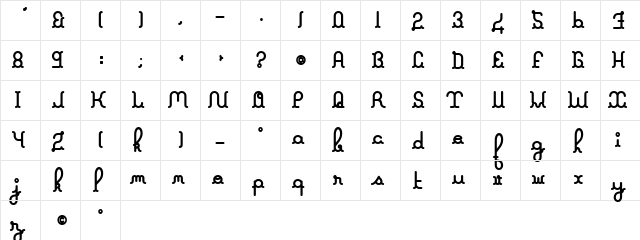
A La Nage Bold
Design Context for A La Nage Typeface
A La Nage is a composed and adaptable typeface that performs quietly and consistently across a wide range of design contexts. The heavy weight commands attention and anchors typographic hierarchies.